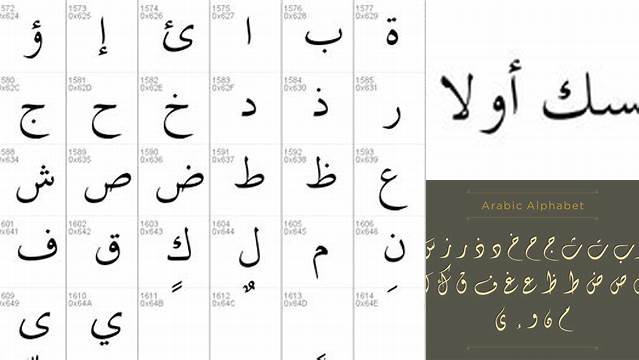
Free Traditional Arabic Fonts: A Comprehensive Guide
Font Traditional Arabic: Your Ultimate Guide to Free Downloads and Usage
Hey guys! If you're looking to add a touch of elegance and authenticity to your designs, look no further than the world of Traditional Arabic fonts. They're perfect for everything from branding to document creation. And the best part? Many amazing options are available for free! In this comprehensive guide, we'll dive deep into the world of Arabic fonts, exploring their nuances, where to find free downloads, how to use them effectively, and much more. So, buckle up, and let's embark on this typographic journey together!
Why Choose Traditional Arabic Fonts?
First things first, why should you even consider using Traditional Arabic fonts? Well, these fonts offer a unique blend of cultural richness and aesthetic appeal. They're not just letters; they're art forms! These fonts can instantly transform any design, adding a layer of sophistication and cultural depth that other fonts simply can't match. They evoke a sense of history, heritage, and artistic expression that is deeply rooted in Arabic culture. Whether you're designing a logo, a website, or a piece of print media, incorporating these fonts can significantly enhance your project's visual impact. Imagine the elegance of a well-crafted Arabic font gracing your brand's identity or the captivating allure of Arabic calligraphy on your website's header. The possibilities are truly endless! In addition to their aesthetic value, Traditional Arabic fonts serve as a bridge between cultures. They allow you to connect with a global audience while honoring and celebrating a rich tradition of artistic expression. For businesses, using these fonts demonstrates a commitment to diversity and inclusivity, which is becoming increasingly important in today's global market. For designers, Arabic fonts open up a world of creativity and experimentation, allowing you to push the boundaries of your design and create truly unique and memorable pieces. Ultimately, choosing Traditional Arabic fonts is about making a statement. It's about choosing to embrace beauty, history, and cultural richness in your designs. It's about selecting fonts that speak volumes, convey meaning, and leave a lasting impression. It's about elevating your work and creating a visual experience that resonates with your audience on a deeper level. So, if you're ready to take your designs to the next level, incorporating Traditional Arabic fonts is a step in the right direction.
Using Arabic Fonts Effectively
Okay, you've got your fonts installed! Now, how do you use them effectively? Here are some tips:
- Understand the Script: Arabic script reads from right to left. Be mindful of this when composing text. Most design software supports right-to-left text direction.
- Font Pairing: Combine Arabic fonts with complementary Latin fonts. Choose fonts that share a similar style or mood to create a harmonious design.
- Kerning and Spacing: Pay close attention to kerning (the space between individual letters) and spacing. Arabic script can sometimes require adjustments to look visually balanced.
- Context Matters: Consider the context of your design. Is it for a formal document, a casual website, or a creative project? Choose fonts that suit the purpose and the intended audience.
- Experiment: Don't be afraid to experiment with different fonts and styles. Try out different font weights, sizes, and colors to find what works best for your project.
Common Challenges and Solutions
Using Traditional Arabic fonts can sometimes present some unique challenges. Here are some common issues and their solutions:
- Glyph Display: Some fonts may not display all glyphs (characters) correctly, especially in older software. Make sure your software supports the font's glyphs.
- Right-to-Left Issues: In some programs, you may need to manually adjust the text direction to right-to-left. Look for a setting in your text formatting options.
- Font Compatibility: Not all Arabic fonts are created equal. Some may work better with certain applications or operating systems than others. Try different fonts to find one that suits your needs.
Q: Can I combine Arabic fonts with Latin fonts? A: Absolutely! Combining Arabic fonts with Latin fonts is a great way to create visually interesting designs. Choose fonts that complement each other in terms of style and weight.
Q: What are some common challenges when using Arabic fonts? A: Common challenges include glyph display issues, right-to-left text direction, font compatibility, and character encoding. Make sure to use Unicode and OpenType-compatible software.